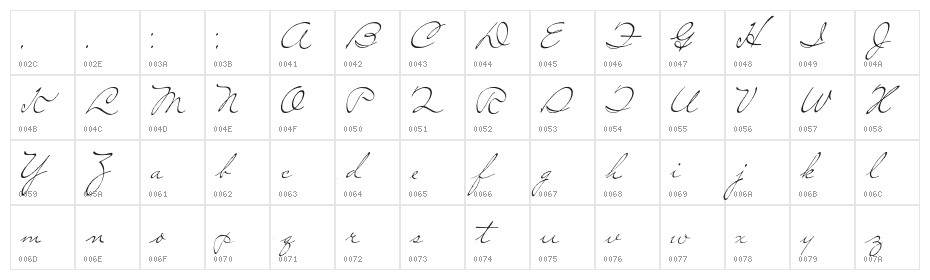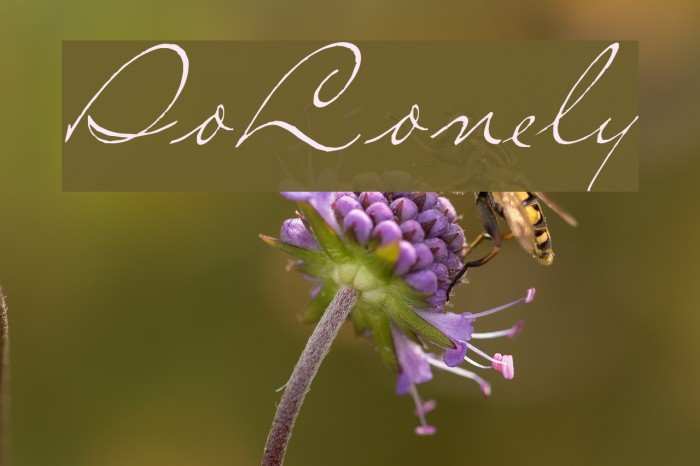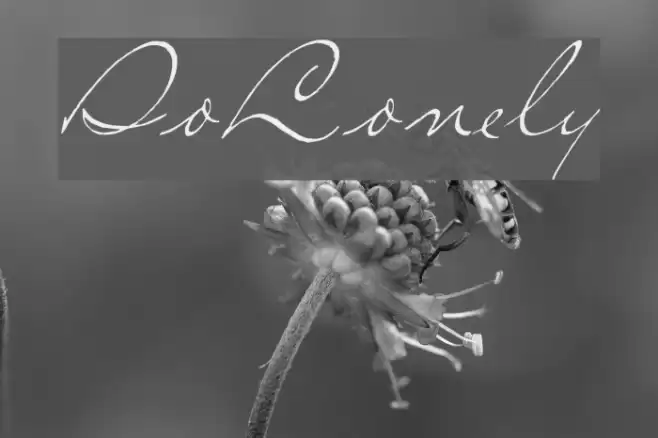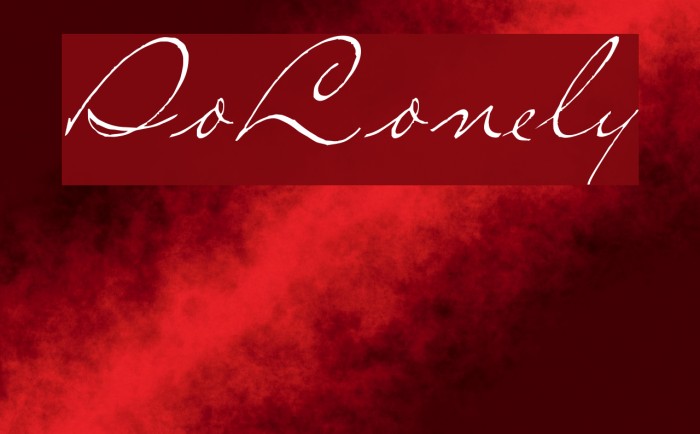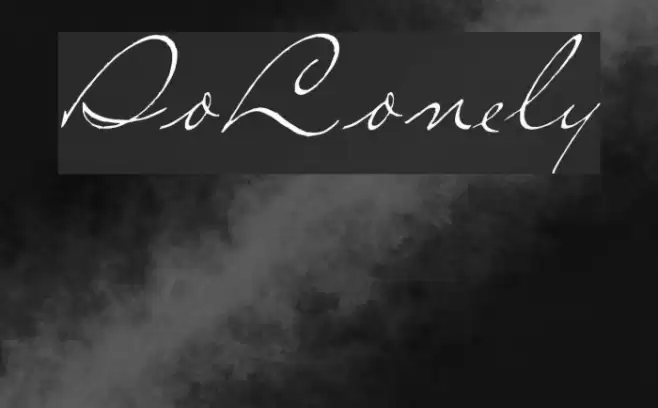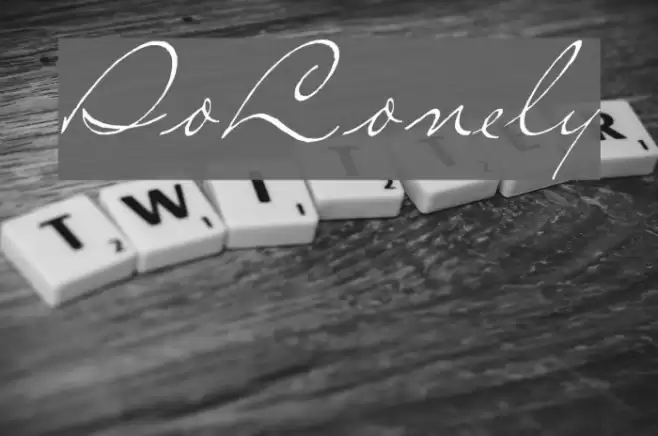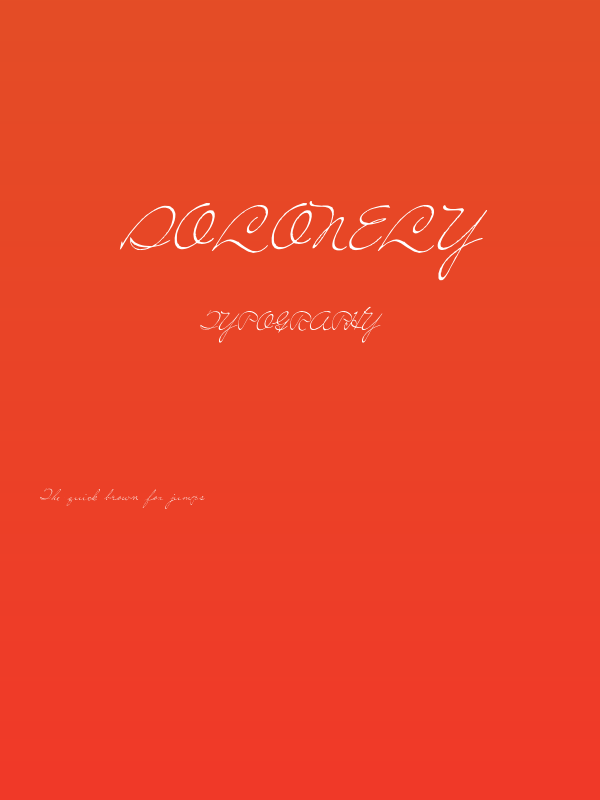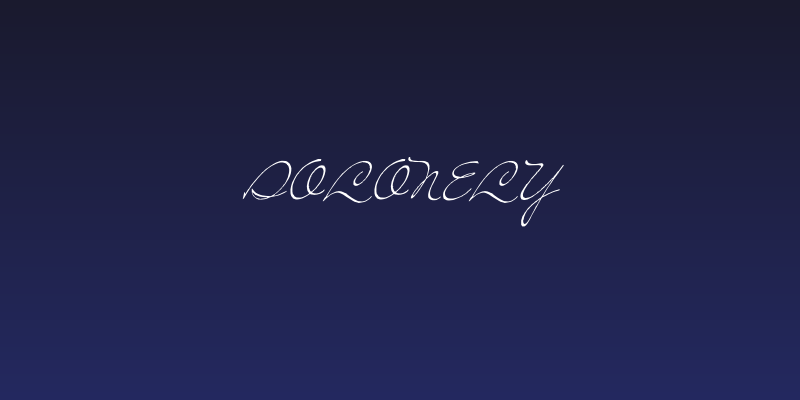
SoLonely Font
SoLonely Description
This elegant script font features fluid, cursive strokes that mimic the natural flow of handwriting. The letters are interconnected, creating a seamless and continuous look. The uppercase letters are slightly more ornate, with flourishes that add a touch of sophistication. The lowercase letters maintain a consistent style, with gentle curves and loops that enhance readability. The numbers and special characters are designed to match the overall aesthetic, ensuring a cohesive appearance across all text. This font exudes a sense of grace and refinement, making it suitable for formal and decorative uses.